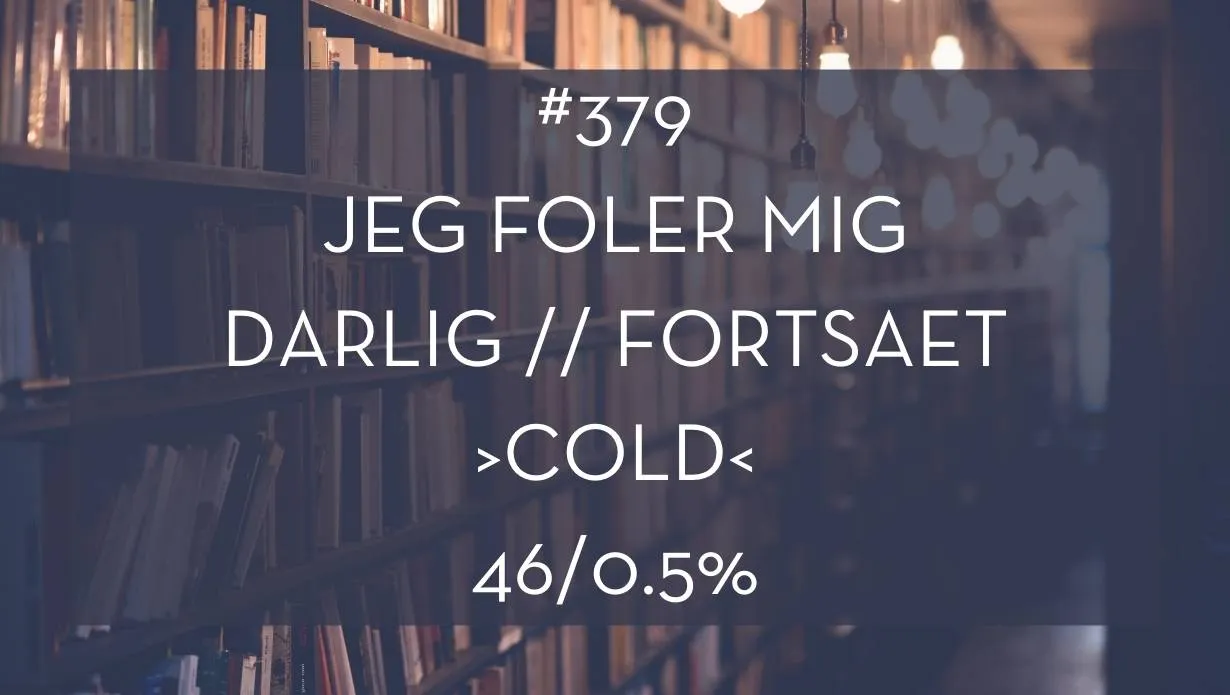
Today we describe a Neutra text font in this article that was released in 2002. This font style has many various variations. This geometric sans-serif font was designed by Christian Schwartz and released through a very famous font industry named house Industries.
Bold, Bold Italic, Book, and Book Italic are the four weights available in this font style. It’s also known for its pairing capabilities. This font gets a very stunning shape when combined with the Grobold font.